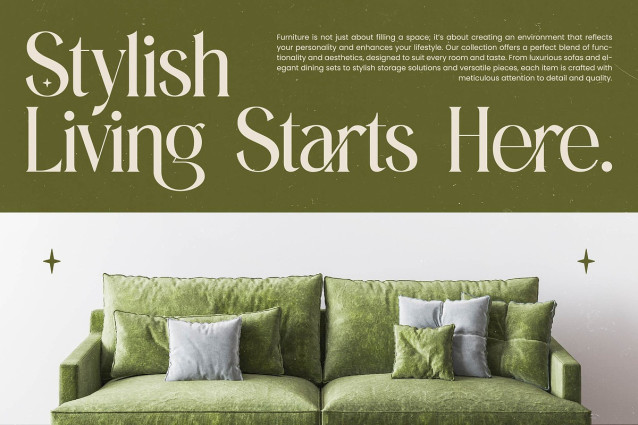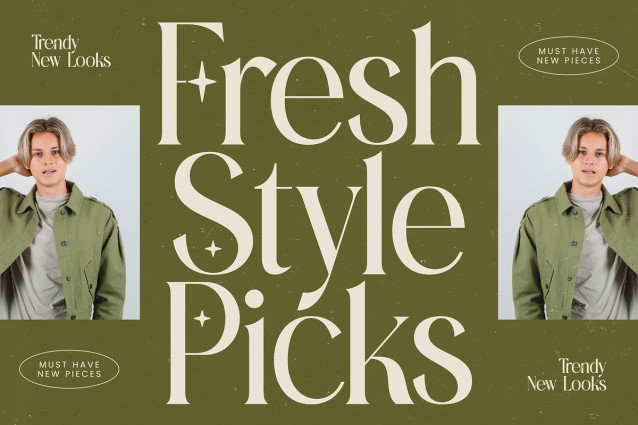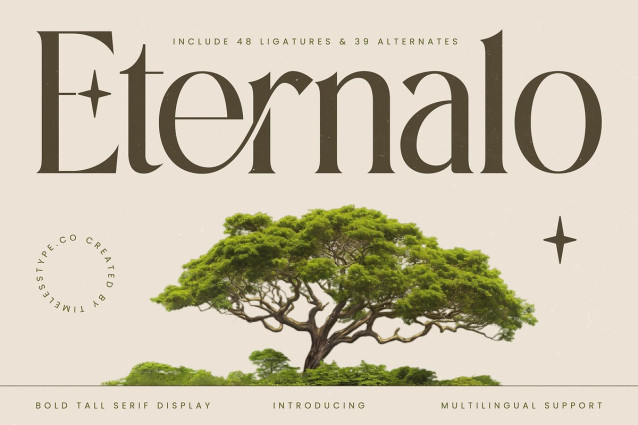
Eternalo Font
Eternalo Font – Bold Tall Serif Display , from Timelesstype.Co , Suitable for any projects such as: logos, branding projects, homeware designs, product packaging, mugs, quotes, posters, shopping bags, t-shirts, book covers, name card, invitation cards, greeting cards, label, photography, watermark, special events, and all your other luxury and beautiful projects that need a Luxury Serif taste.